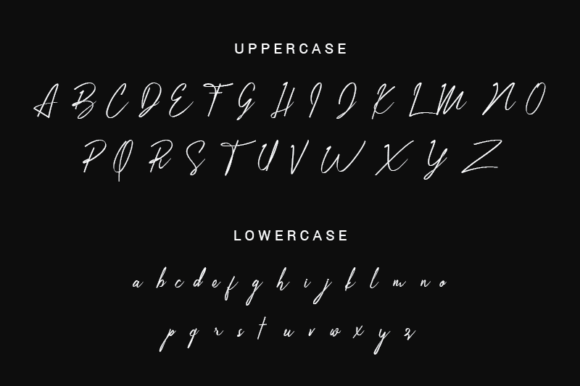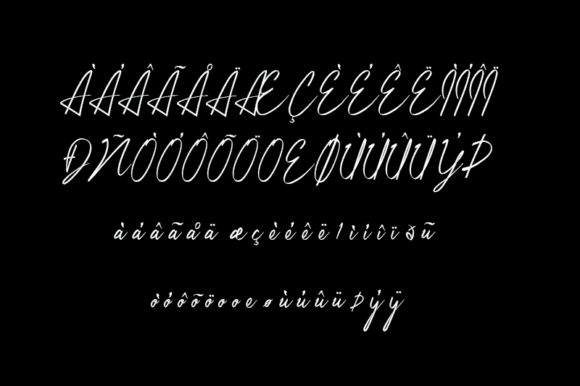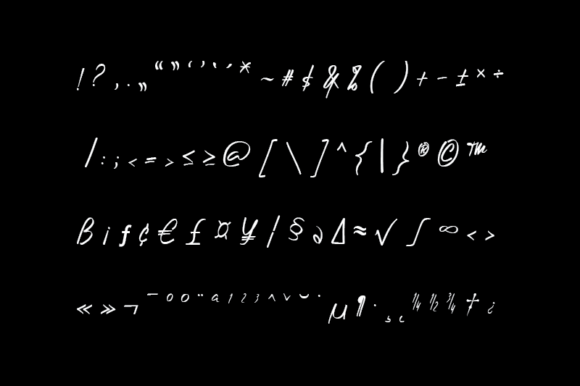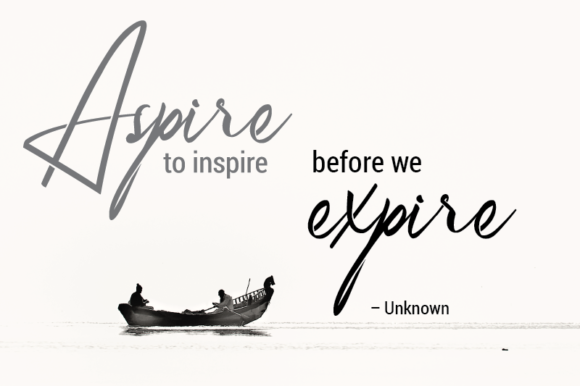
About Bulgarie Font
Bulgarie is an incredibly distinct, delicate and timeless handwritten font. It looks stunning on wedding invitations, thank you cards, quotes, greeting cards, logos, business cards and every other design which needs a handwritten touch.